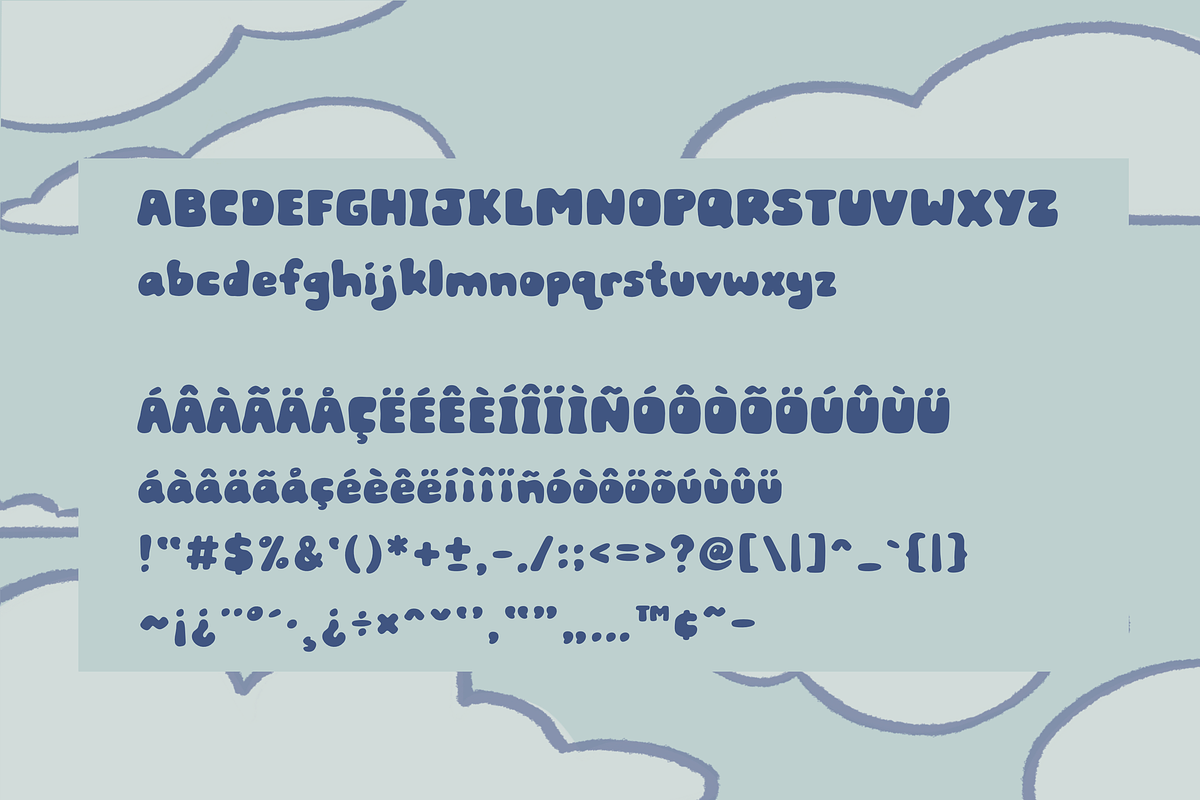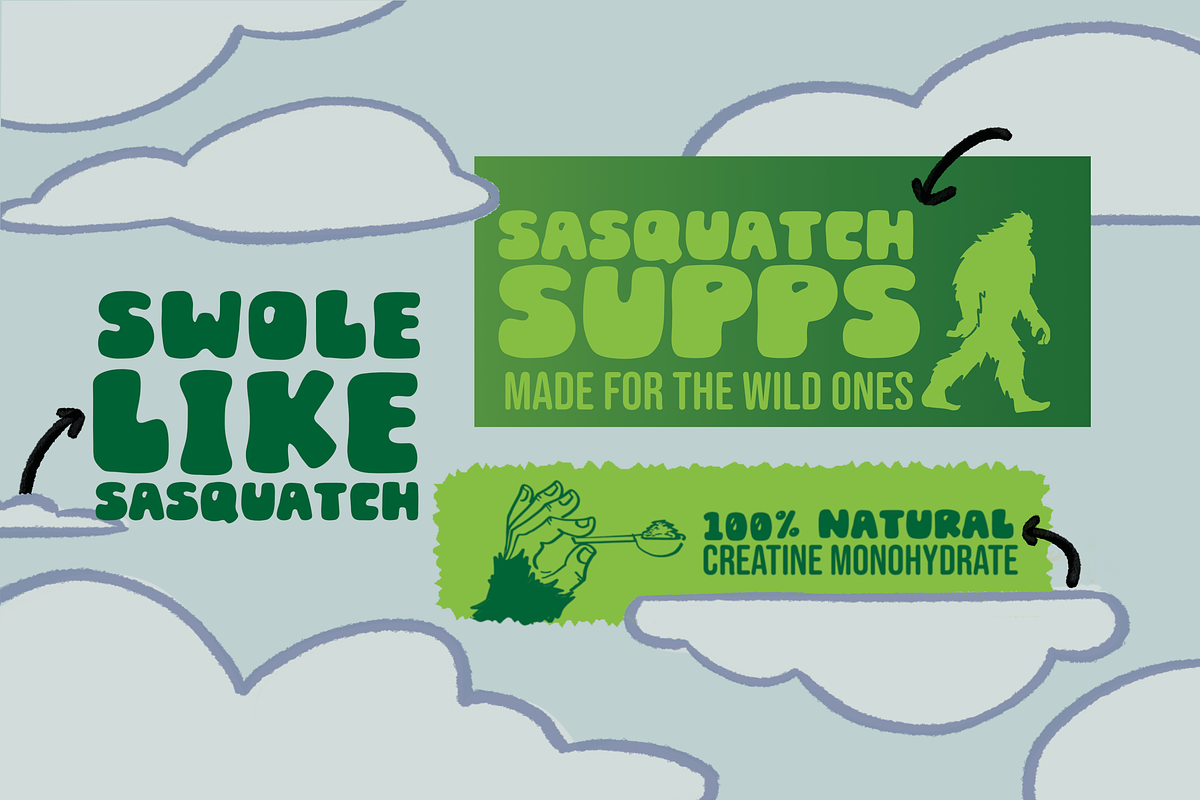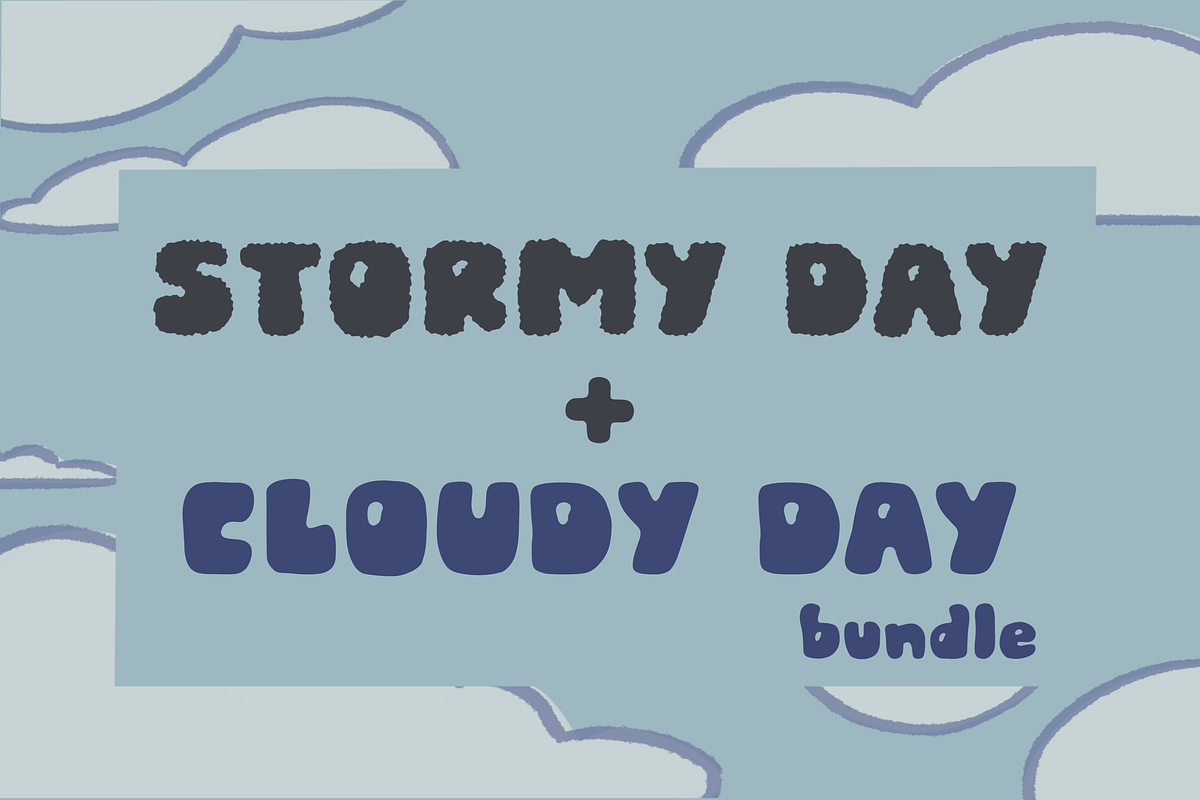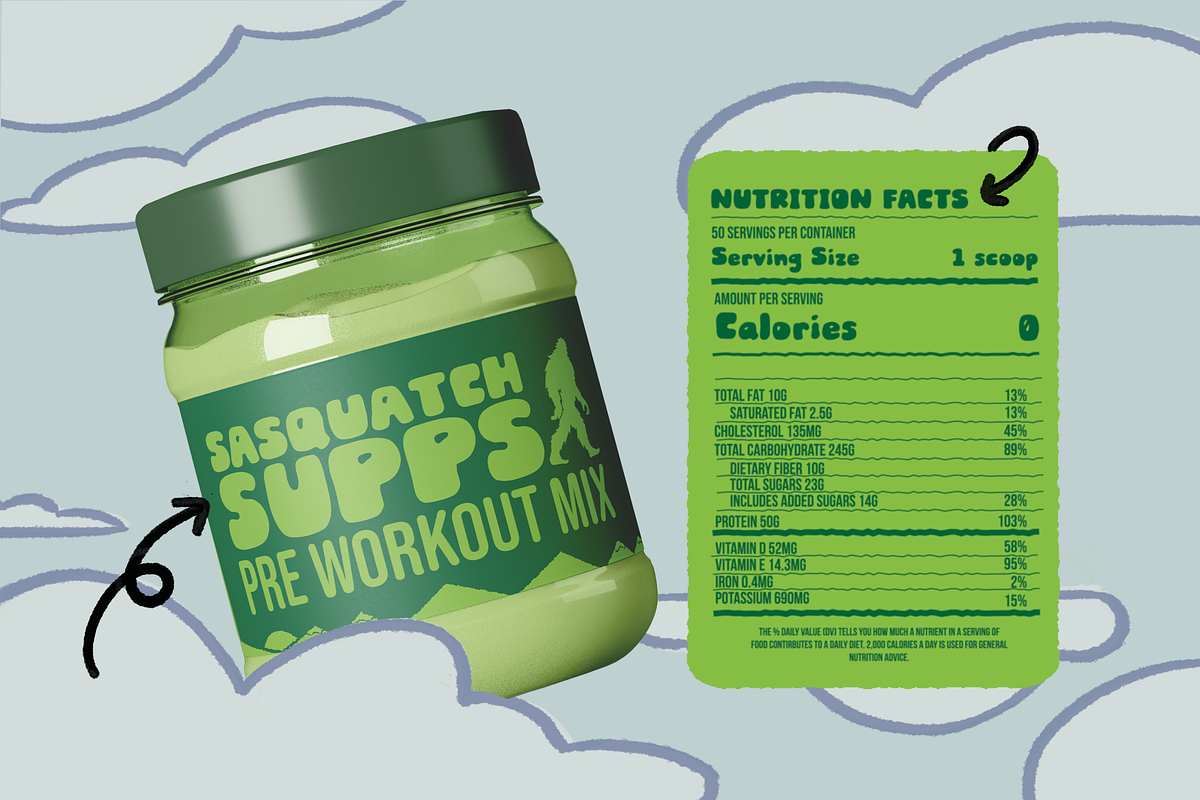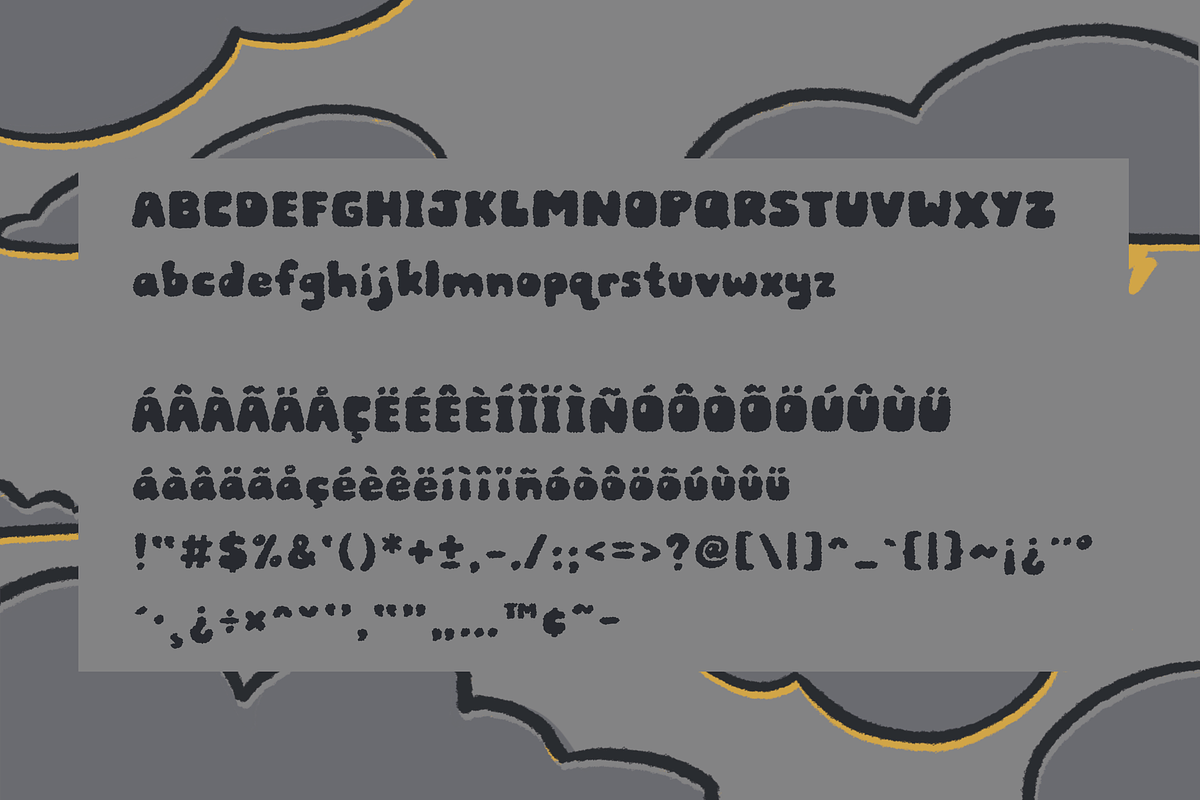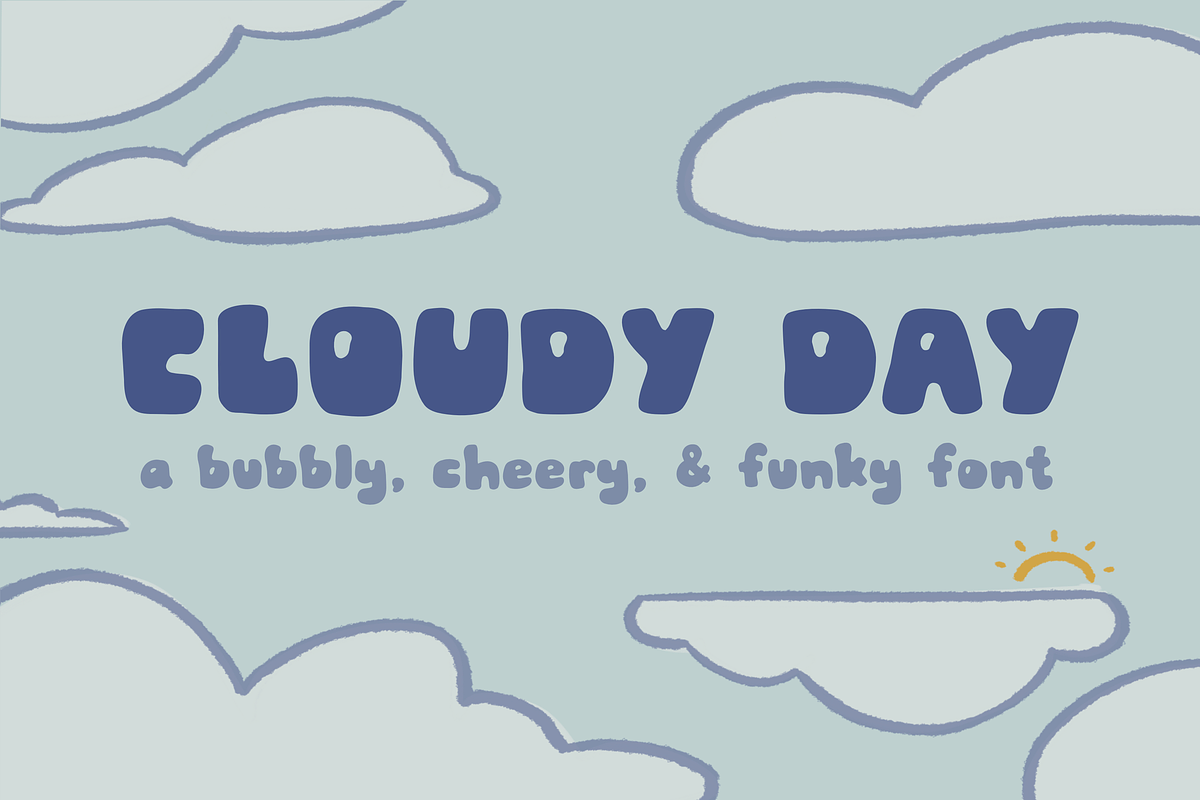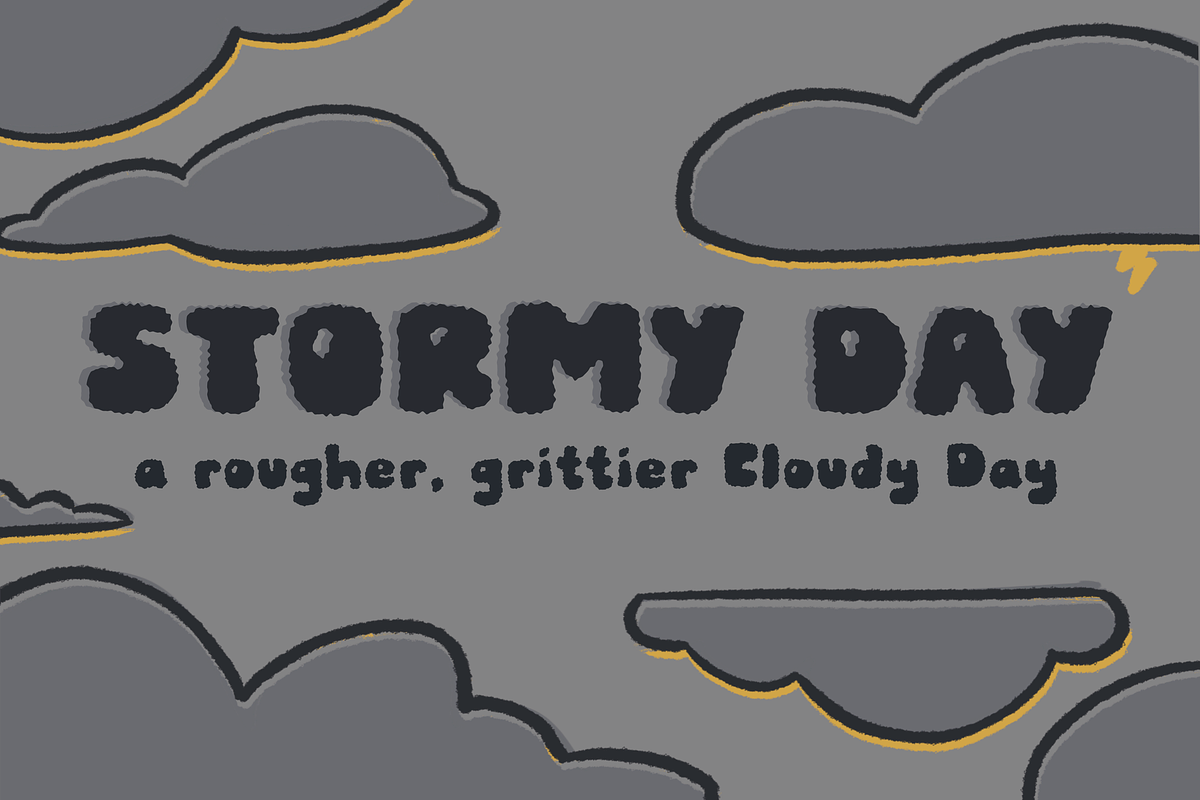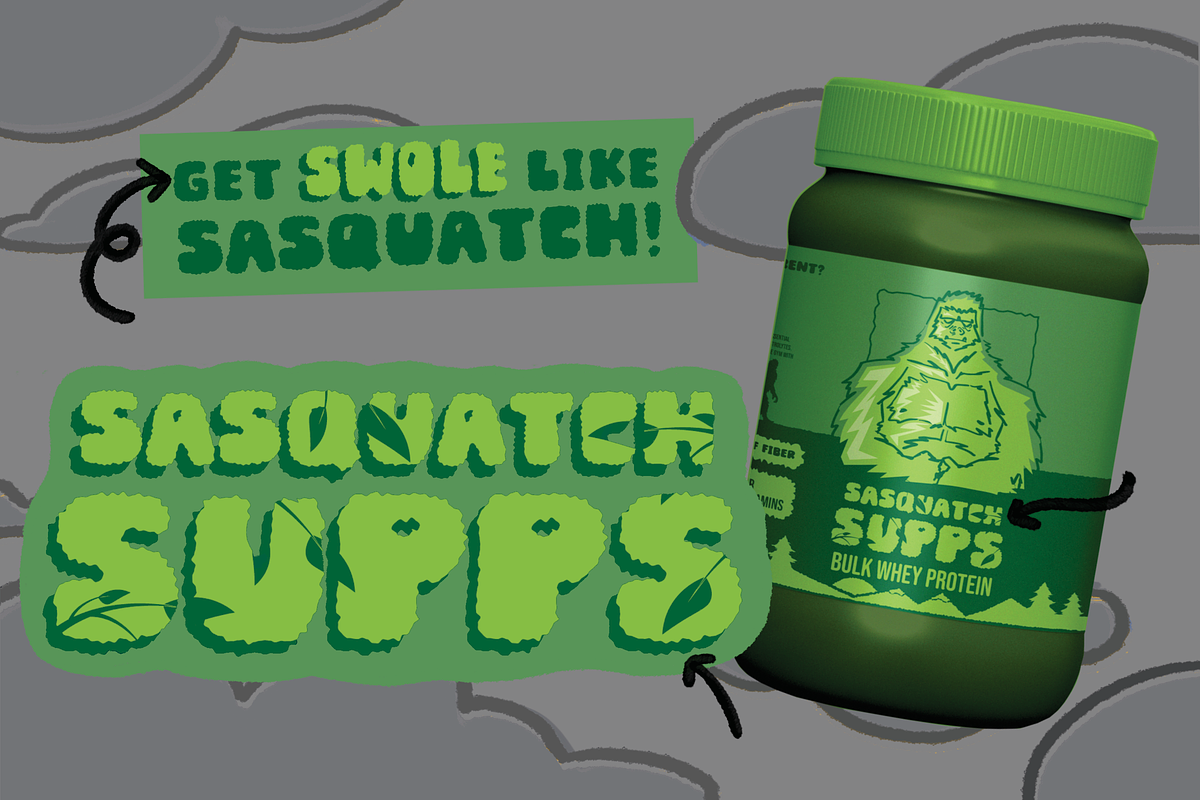
Cloudy + Stormy Day Bundle
Cloudy Day is a bubbly sans serif font with a distinctly hand lettered feel. Perfect for bold, funky titles or slogans. Stormy Day is the gritty, jagged version of Cloudy Day. Perfect for when you need some extra texture.